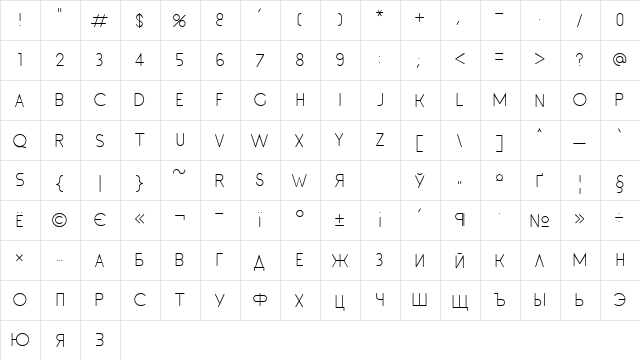
Inset1 Normal
Design Context for Inset1 Typeface
Inset1 takes a measured approach to typography — its balanced proportions and neutral character make it a reliable workhorse for both digital and print work.